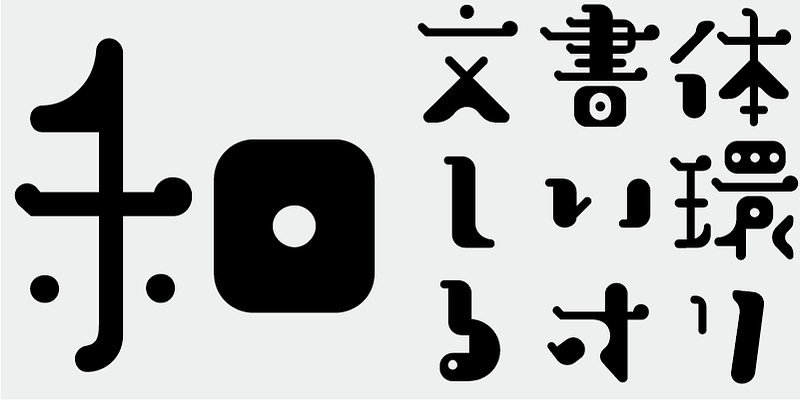
AB Shoutenmaru Font Free Download is a bold and playful display typeface inspired by traditional Japanese signage and expressive handwritten forms. With its rounded shapes, thick strokes, and slightly retro charm, AB Shoutenmaru is perfect for restaurant menus, festival posters, product packaging, and branding that wants to convey energy, warmth, and a touch of nostalgia.
This font captures a friendly and approachable feel while maintaining a strong visual presence. It supports both Japanese and Latin scripts, making it highly versatile for bilingual projects or global designs that aim to combine tradition with personality.